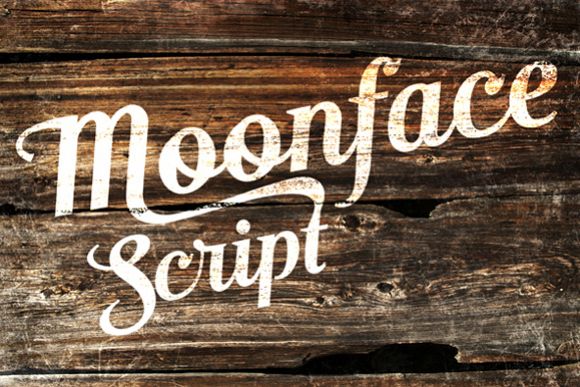
Moonface Script
Moonface Script from TypeFaith Fonts is a flowing script with lovely swashes. It is based on the 20th Century Packaging typo. Moonface Script is a characteristic font with a retro feel. It contains a full set of ligatures, alternatives, swashes and special characters to end. How to use OpenType see http://www.adobe.com/products/type/opentype.html.